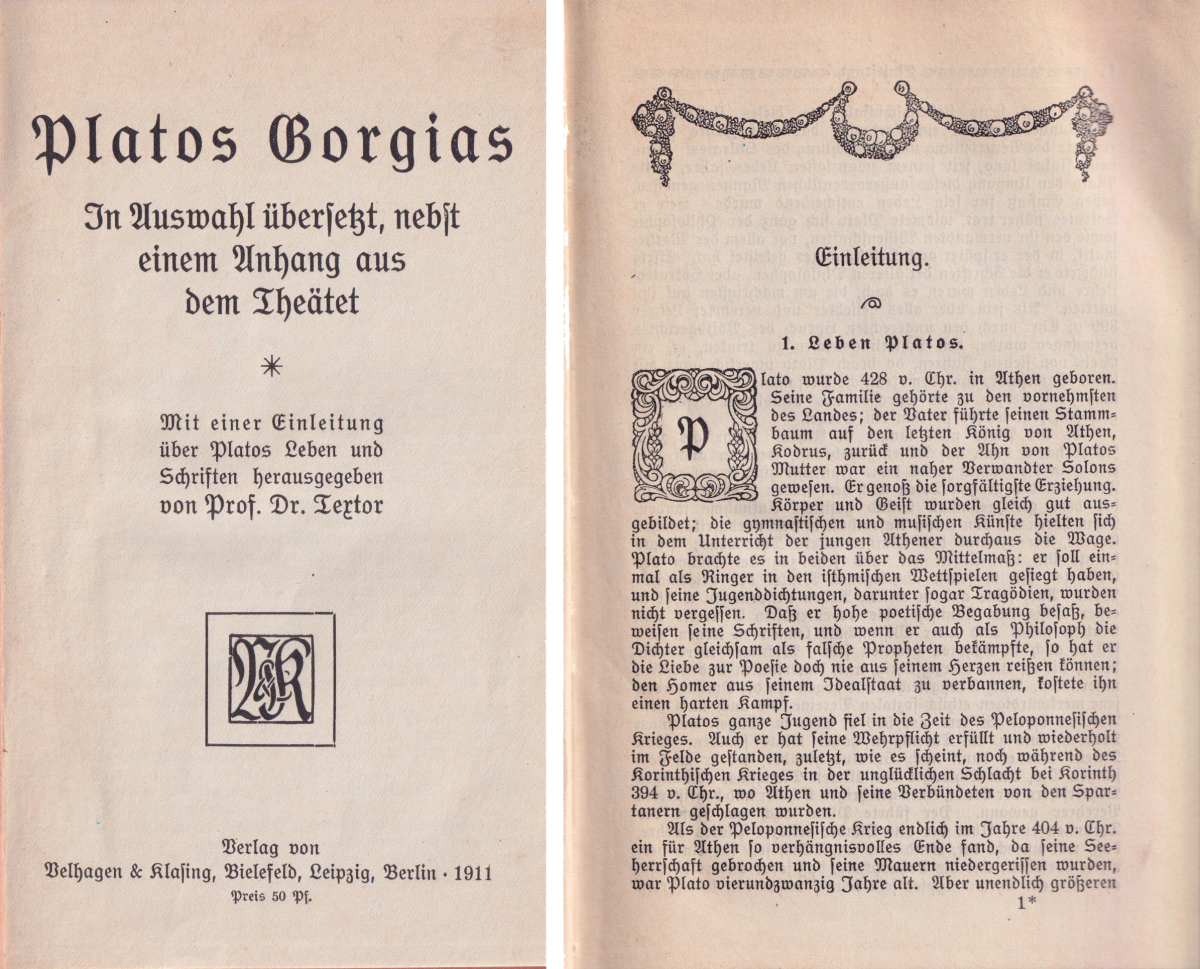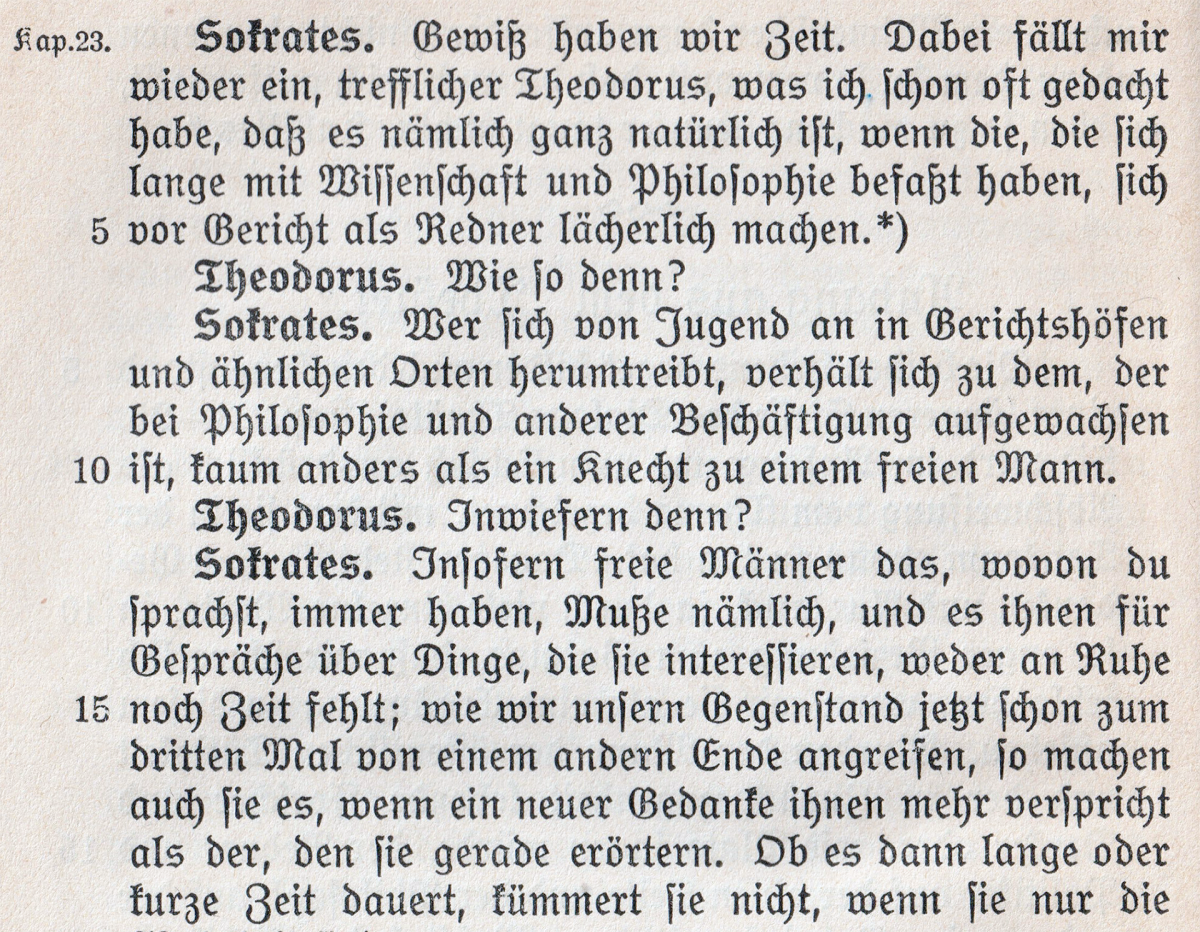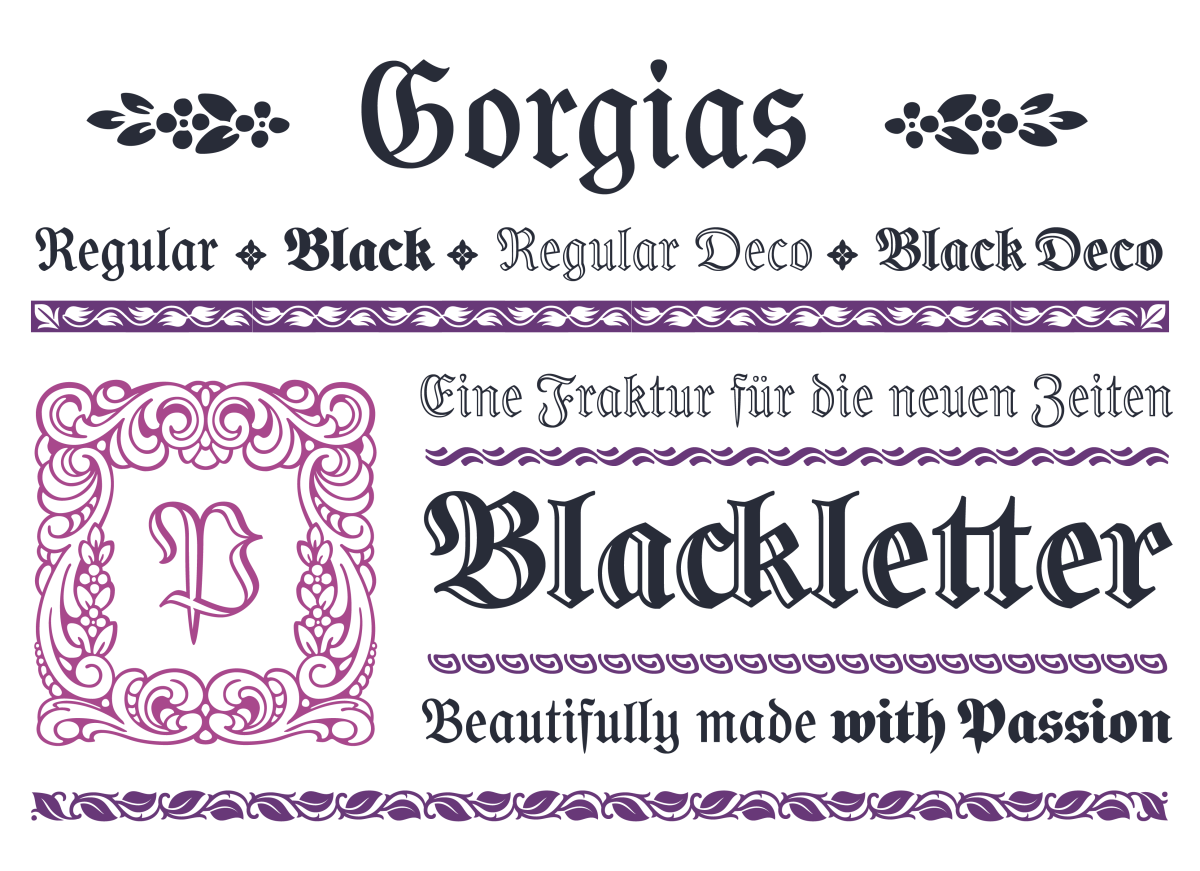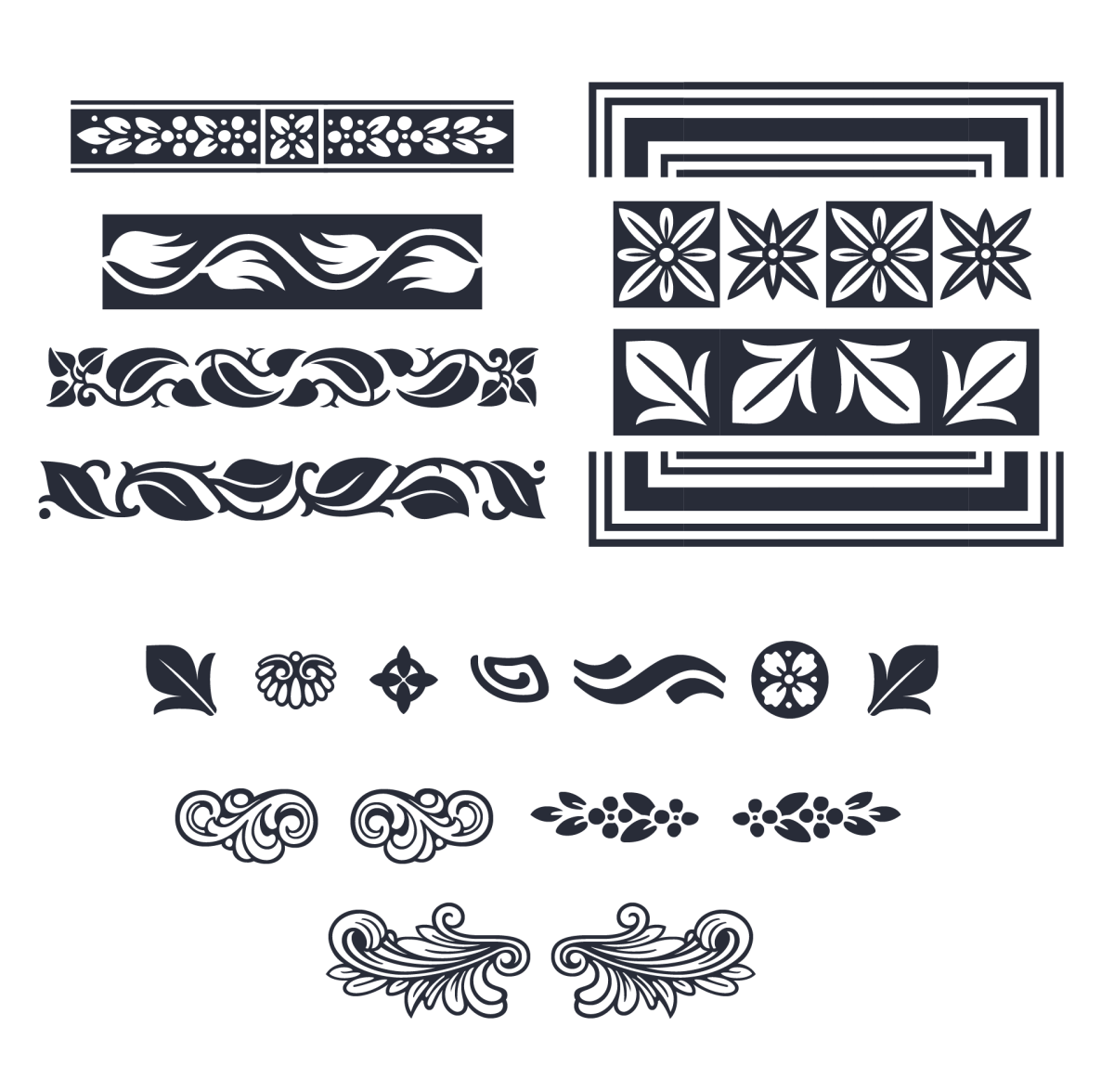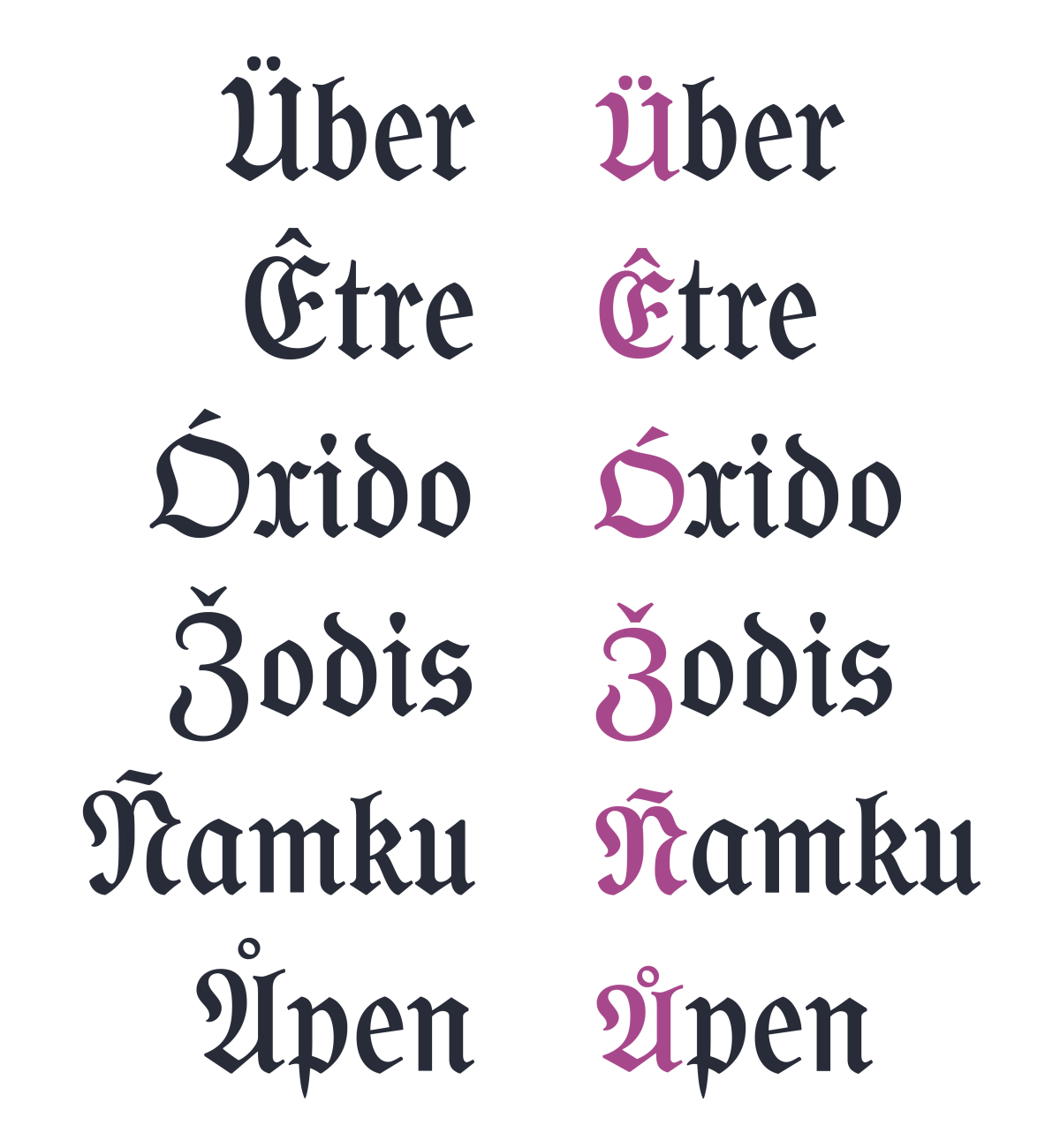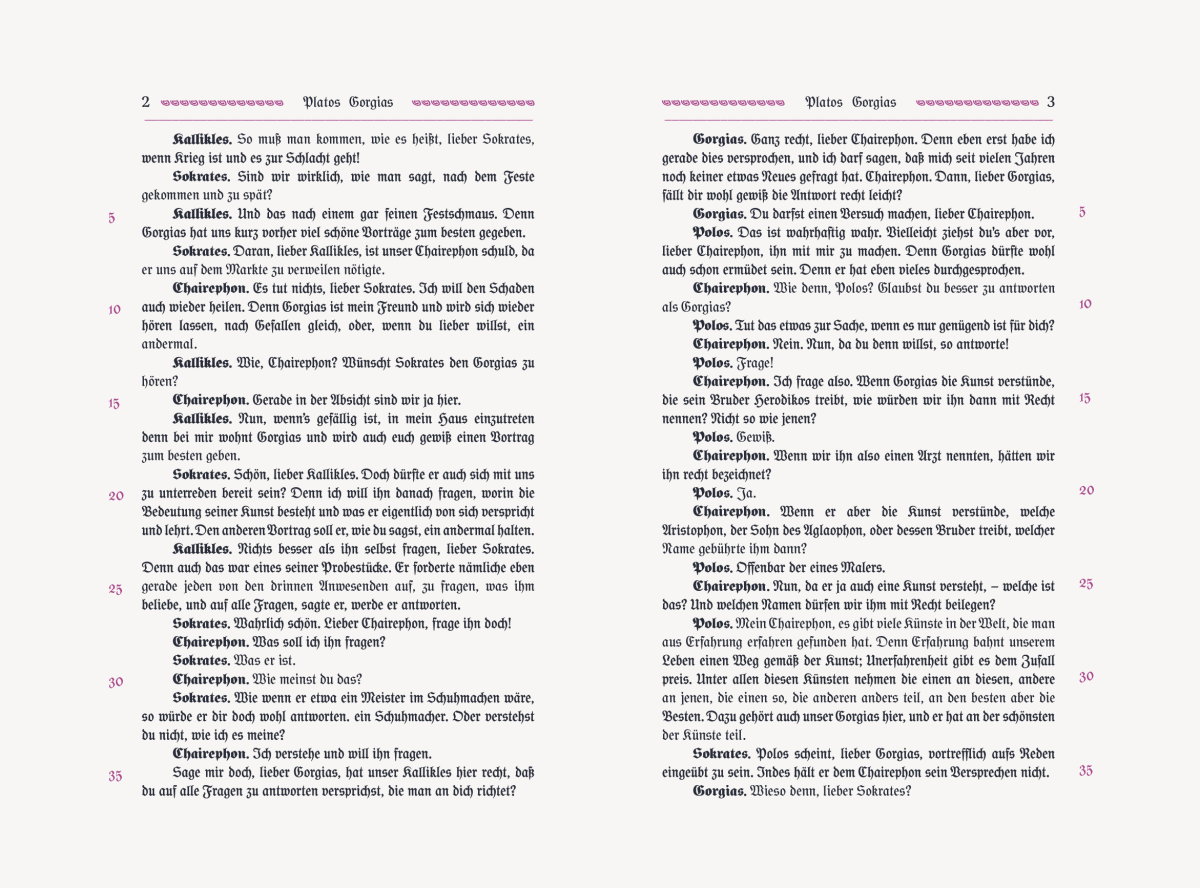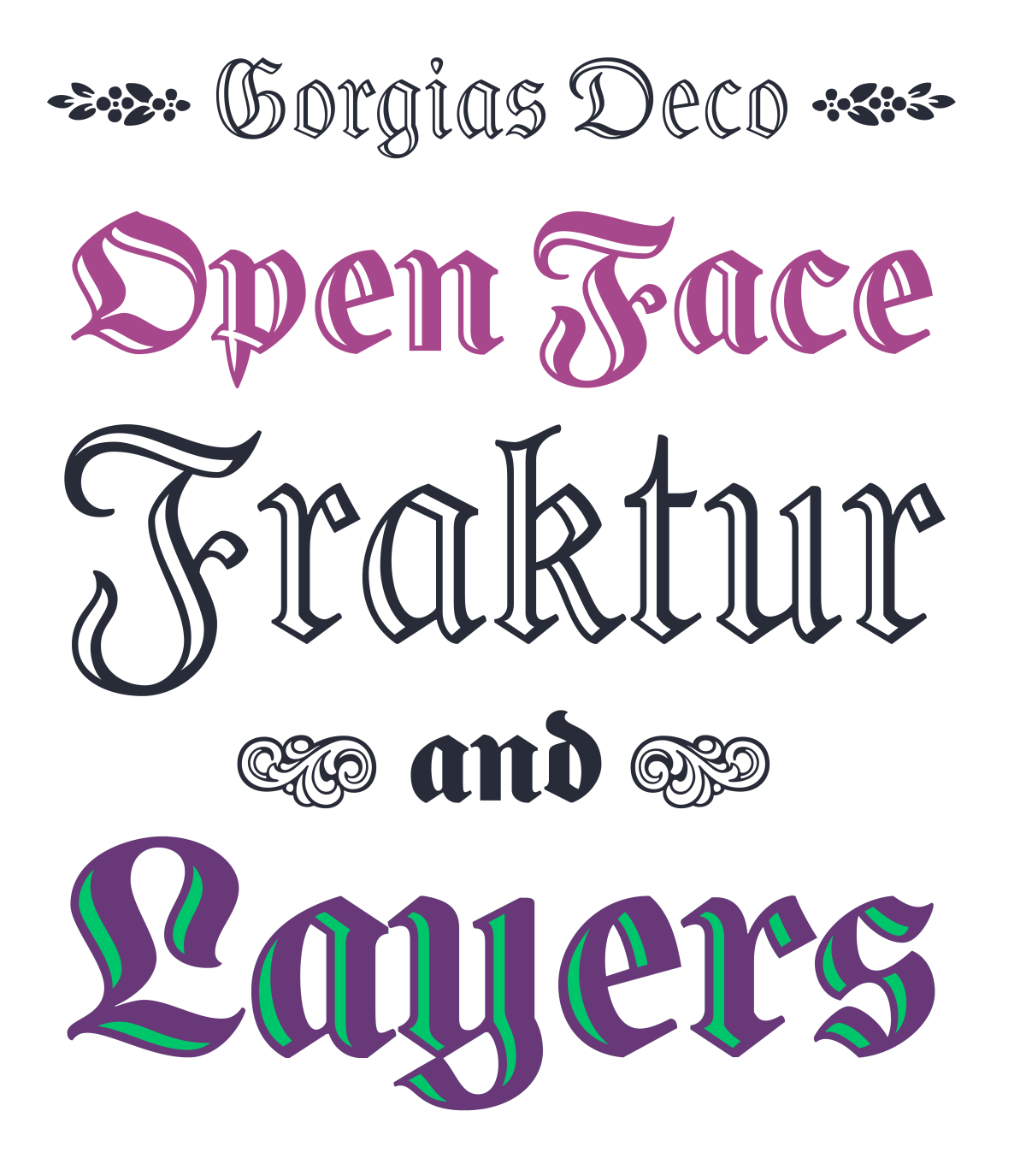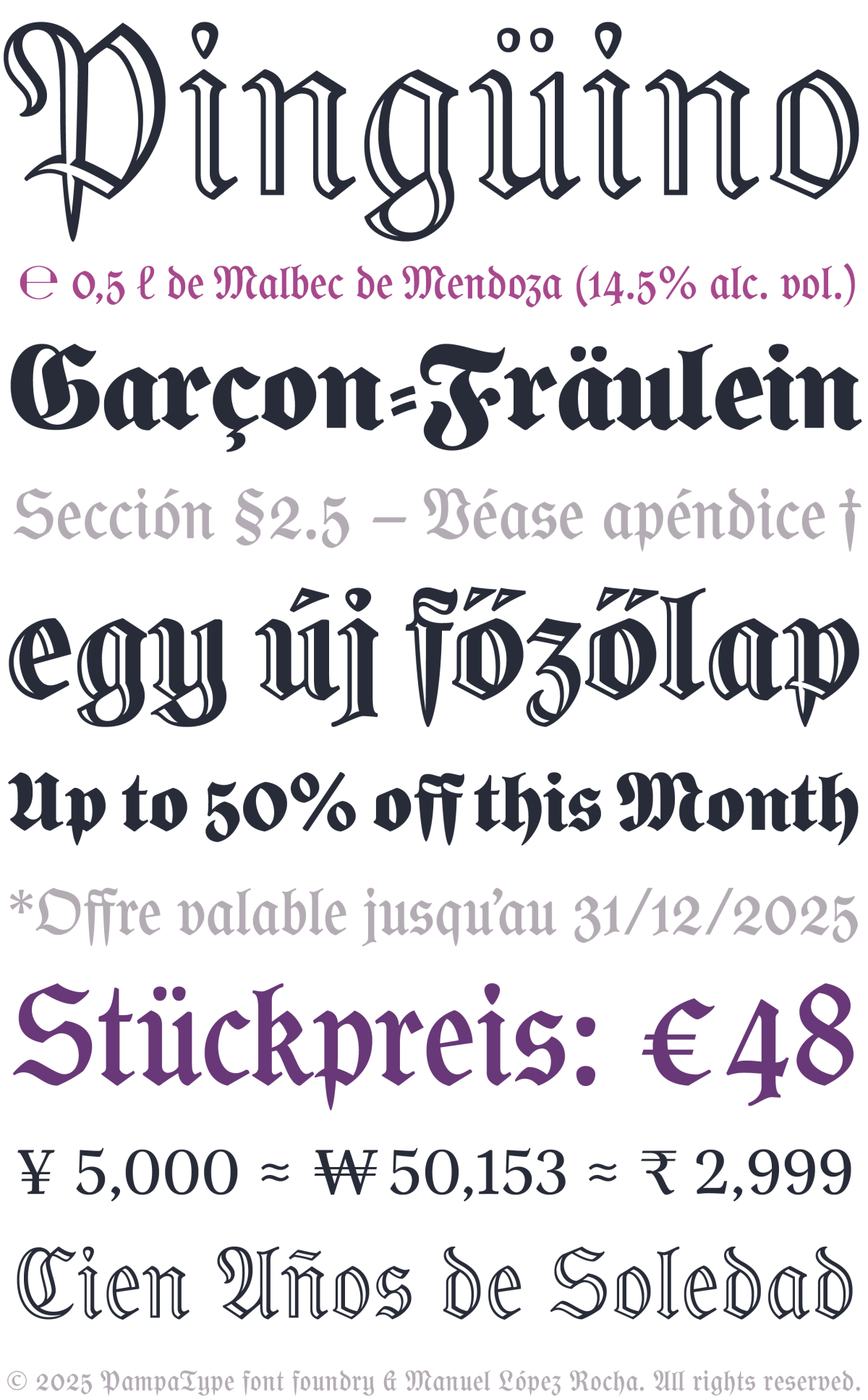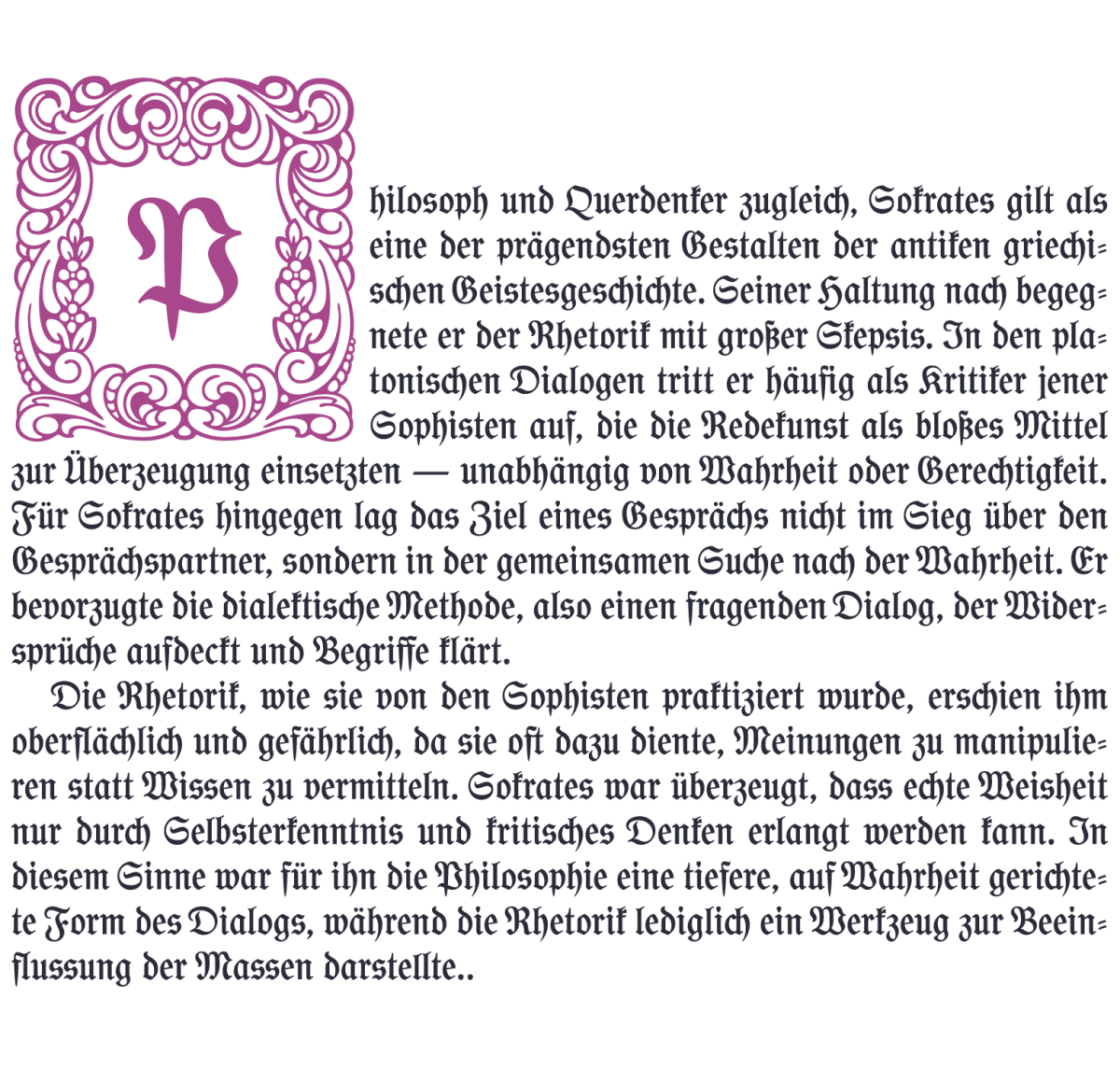
Designing Gorgias. How to revive a traditional Fraktur by enhancing it for a contemporary, original use
The latest addition to our type library is a typeface conceived and developed in Mexico that delves into a style little explored in contemporary type design. With both a historical and innovative approach, Gorgias seeks to revitalize the blackletter tradition through a sophisticated and functional interpretation that, made with great passion for detail, results in a renewed and versatile version of the Fraktur style, and in turn in one of the most complete proposals of the genre in today’s type scene. This text traces the foundations and motivations in the design process of Gorgias, explores its formal and functional aspects and highlights its potential to enrich projects with an evocative and dynamic visual aesthetic.
A project of slow maturation
Gorgias is not the result of a mere historical revival, but the product of a research and experimentation process of more than ten years, in search of a balance between respect for typographic heritage and adaptation to modern visual communication needs. The resulting family is composed of two well-defined styles: Solid and Deco, each declined in two weights (Regular and Black). The set has been designed with great rigor and with a clear idea of versatility for its application, incorporating style variants and ornamental resources that broaden its expressive possibilities.
These characteristics allow its use in titles and decorative compositions with a distinctive character, but without relegating its functionality in blocks of text. The result of meticulous work in the construction of its forms, endowed with a broad linguistic support and equipped with a good diversity of typographic resources, Gorgias stands out for its visual strength, its singularity and idiosyncrasy, and for its ability to be integrated into very diverse typographic contexts.
Here follow some reflections that emerge from the process of designing a blackletter or fractured type in these times.
German heritage and Mexican appropriation
In Mexico, blackletter (or Gothic) lettering has a deep-rooted presence, more than one might expect in a country on this side of the Atlantic. Although its origin is linked to the European typographic tradition, especially German, its influence has permeated in a remarkable way in diverse areas of Mexican visual culture. This style of lettering —or its echoes, is manifested in elem ents as diverse as commercial brands, street signs, business signs, sports team logos and even in the lettering of religious temples.
Some samples of signs and advertisements in vernacular blackletters from diverse places in Mexico [mixed photos by Manuel López Rocha, Jesús Barrientos Mora and Alejandro Lo Celso.]
There are also important samples of the use of Gothic letters in the first American printed works, produced in Mexico, as well as in manuscripts written both in Spanish and in several native languages. Its presence is documented especially between the XVI and XVIII centuries, evidencing its roots in the written tradition of the time.
Pages from the book Arte de la lengua mexicana y castellana [Art of the Mexican and Castilian Language] written by Alonso de Molina and printed by Pedro Ocharte in 1571.
Thus, the presence of gothic lettering in Mexico, far from being anecdotal, has been the subject of study in research such as Mexican Blackletter, by Cristina Paoli, which documents its use in popular graphics, or in the conference “A Beautiful Dark Heritage” that Jesús Barrientos gave for The Cooper Union school, where he explores the roots and mutations of this style within the Mexican visual imaginary.
Book cover of Mexican Blackletter by Cristina Paoli and screenshots from the talk “A Beautiful Dark Heritage” given by Jesús Barrientos for the Cooper Union school.
Blackletter letterforms have always represented for me an enigma, a visual and conceptual contrast to the classical Latin letterforms, which not only dominate traditional typographic teaching, but are also present since childhood in the learning of reading. Its formal logic, based on more abrupt contrasts and angular structures, poses a different approach to the construction of the letter and the rhythm of reading. Although in Mexico the daily presence of blackletter typography is mostly found in popular interpretations and hand lettering, the Fraktur style is not specifically the most common within this graphic panorama. However, it was precisely this absence that awakened my interest in designing a blackletter typeface that would dialogue with this tradition from a contemporary perspective. More than a simple historical recreation, this project became a formal and conceptual exploration that sought to connect with the visual richness that this style has been developing in different cultural contexts.
From the quill or from the lead
In the midst of 2025, and beyond German-speaking countries, familiarity with blackletter forms comes mainly from calligraphy. Its characteristic style, defined by fragmented and angular structures, originates from a well-defined ductus, the logic of which responds to the tool with which it is traced. However, the Fraktur style followed a different path: its consolidation was not so much determined by the quill, but by metal. Although, strictly speaking, all typographic forms evolved in metal since they became independent of the quill, the Fraktur did so as a fully typographic style, whose morphology was defined by the technical and aesthetic principles of movable type design rather than the manual gestures of writing. This transformation allowed it to acquire its own visual identity, differentiated from other blackletter of Gothic styles, and to establish a typographic tradition that lasted almost 400 years.
In many contemporary typefaces inspired by the Fraktur style, it is common to observe modulations with a horizontal axis of contrast in certain features or terminals that evoke more the expansive stroke of a flexible-tipped tool than the uniform pressure of a flat-tip pen. While the ornamental nature of the Fraktur is one of its most distinctive qualities, its expressiveness comes not from the fluidity of the ink on the parchment, but from the constraints and possibilities imposed by the metal block. Its design adapted to the limitations of the typographic system, developing formal solutions that, far from being mere transcriptions of calligraphy, consolidated a visual language of its own within the history of typography.